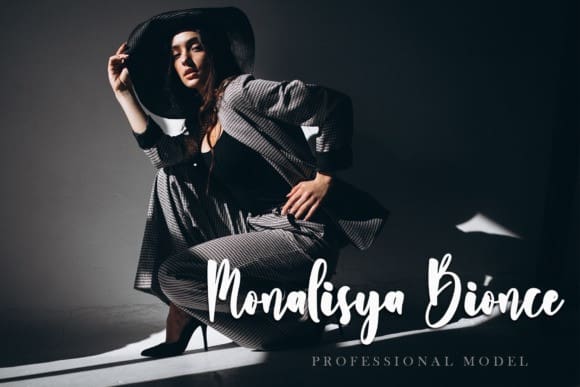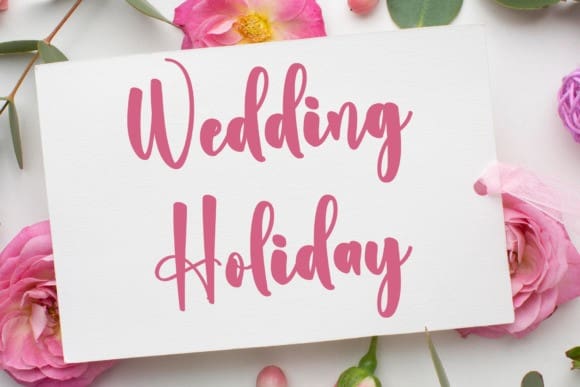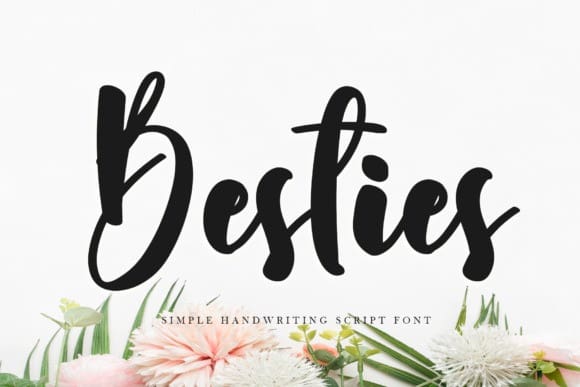
Besties Style Script Font
Besties Style Script Font, is a sweet, whimsical, flowing and thin script font. Featuring characters that dance along the baseline, this font will add a luxury spark to any design project that you wish to create!